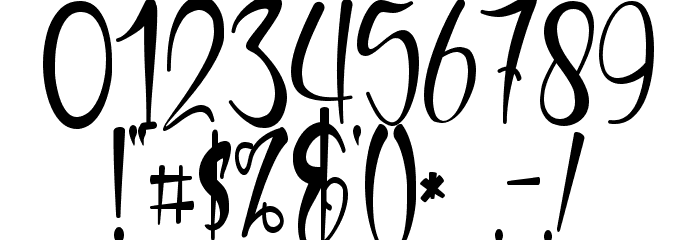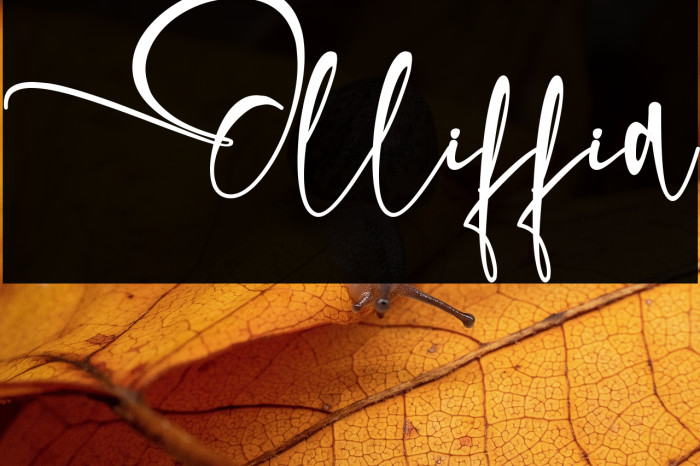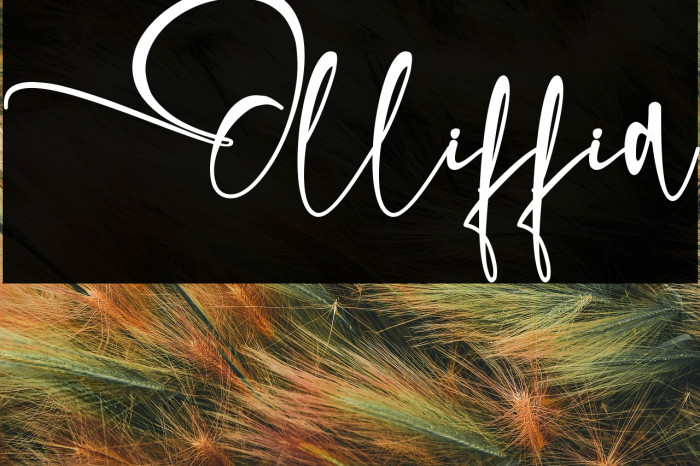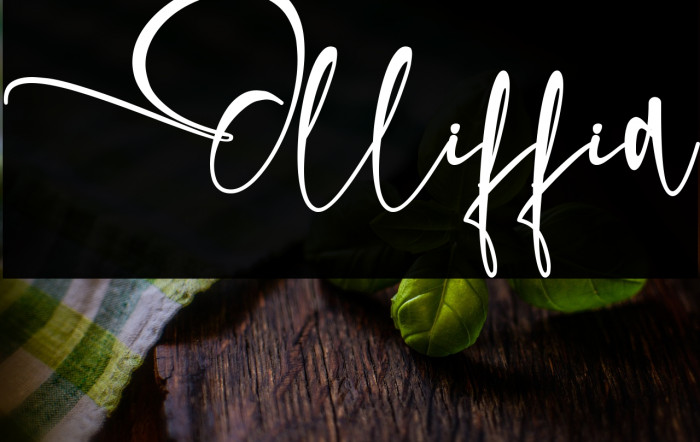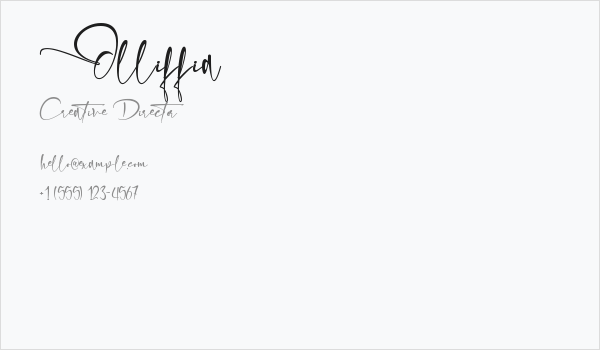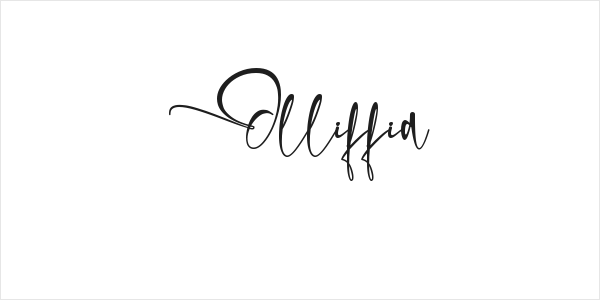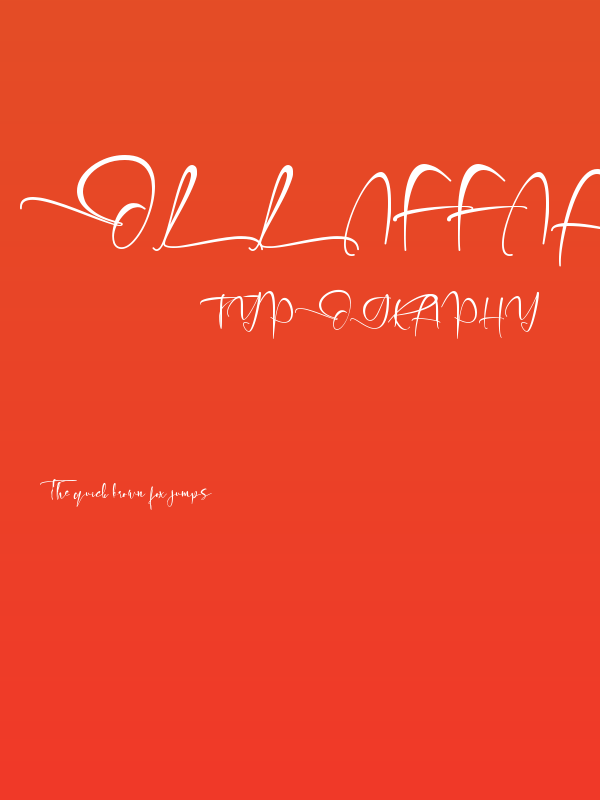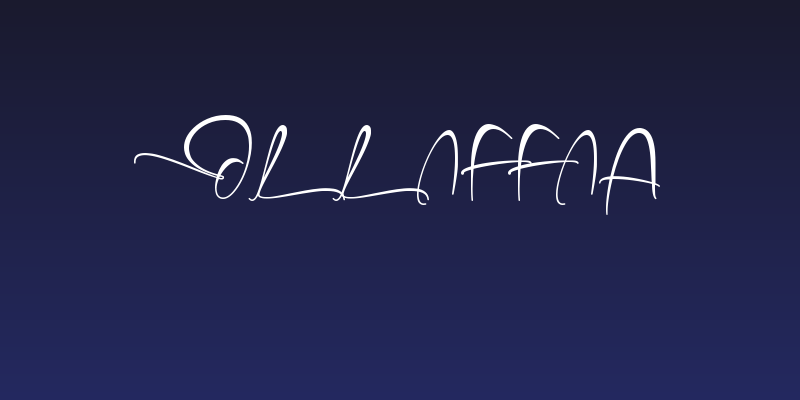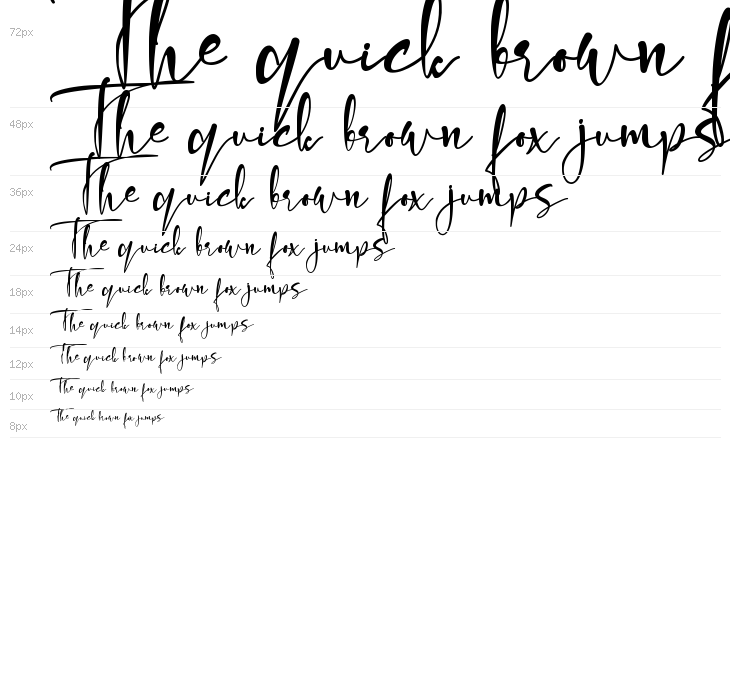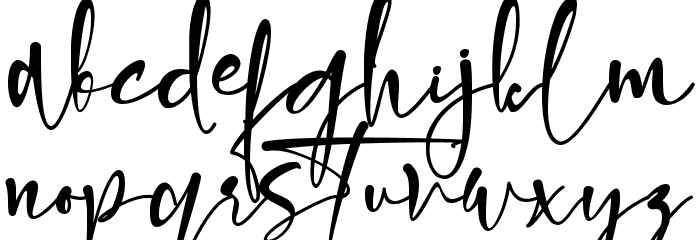
Olliffia Font
Olliffia Description
This font exhibits a dynamic and expressive handwritten style, characterized by its fluid and cursive letterforms. The uppercase letters are elegantly elongated with sweeping curves, while the lowercase letters maintain a consistent flow, enhancing readability despite their artistic flair. The numerals are bold and clear, complementing the overall aesthetic. Special characters are creatively integrated, maintaining the font's cohesive look. The font's playful yet sophisticated nature makes it suitable for a variety of creative applications.
| Proposed Projects | Ideal for wedding invitations, greeting cards, branding projects, and social media graphics. |